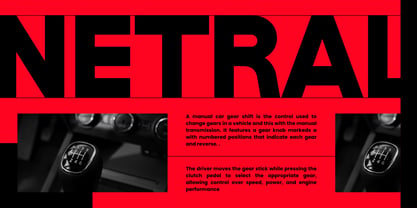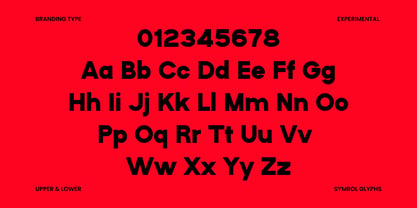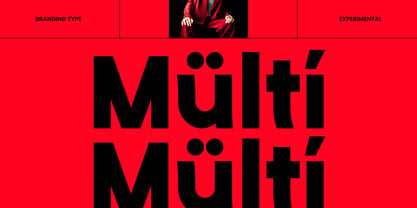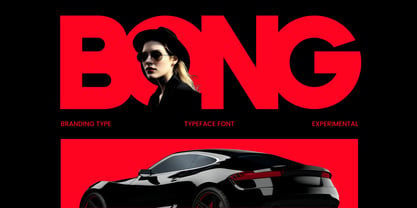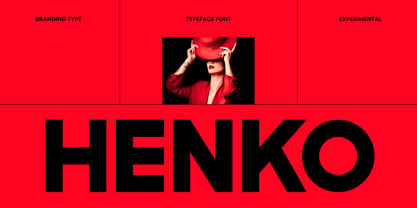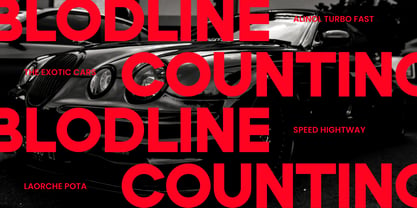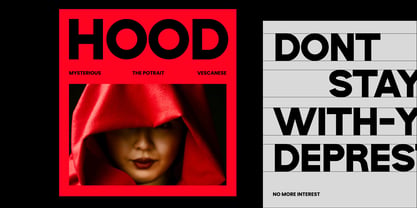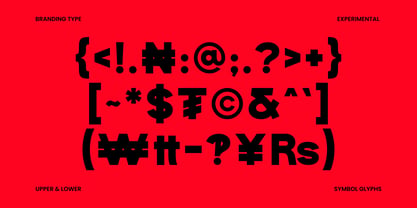
Henko
La familia tipográfica Henko fue diseñada por Gilang Ternadho y publicada por Maikohatta. Henko contiene 1 estilos. Más información sobre esta familia
Introducing our new product Henko – Bold Modern Sans Serif Henko is a bold and modern sans serif typeface, designed with a clean, confident, and highly legible character. Featuring strong letterforms, balanced proportions, and smooth curves, Henko presents a contemporary look that's perfect for impactful headlines and visual identities. This font is ideal for branding, logo design, posters, editorial layouts, social media graphics, web design, and corporate projects. Its minimalist yet powerful style allows it to stand out while remaining versatile and professional across a wide range of design applications. Henko embodies a bold and clean identity inspired by simplicity, making it a reliable choice for designers seeking clarity, strength, and a modern aesthetic in one typeface.